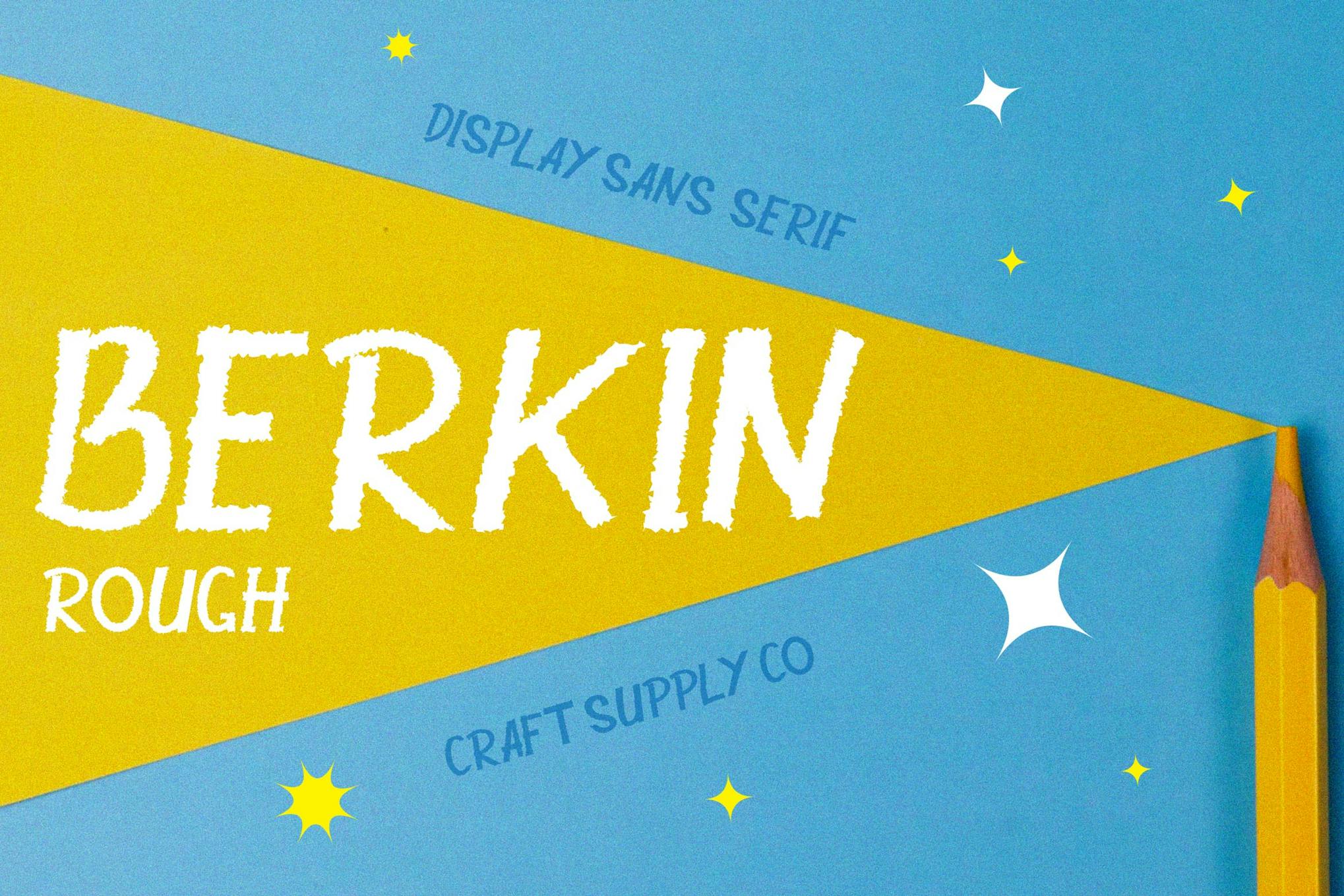
Berkin Rough Font
Perfect for posters, logos, branding, packaging, social media graphics, and creative editorial projects.
The Berkin Rough Font excites designers with its bold, textured strokes and raw, hand-crafted aesthetic that adds a dynamic, authentic vibe to any design.
The Berkin Rough Font Free Download is a rugged typeface crafted to bring strong personality and visual impact to your projects. Its rough, distressed edges create an organic and bold look, ideal for brands and creatives aiming to express authenticity and boldness. Whether you’re designing logos, posters, or social media visuals, Berkin Rough commands attention with its textured style.
One of the key strengths of Berkin Rough Font is its perfect balance between roughness and readability. Despite its distressed design, it remains clear and effective for headlines and display text, ensuring your message stands out loud and strong.
In branding, Berkin Rough conveys creativity, strength, and originality. It pairs excellently with earthy tones, textured backgrounds, and bold imagery, helping brands craft a memorable and grounded identity.
For digital projects, this font enhances website headers, social media posts, and promotional materials with its hand-crafted, textured look. Its energetic character ensures your digital content stands out with genuine personality.